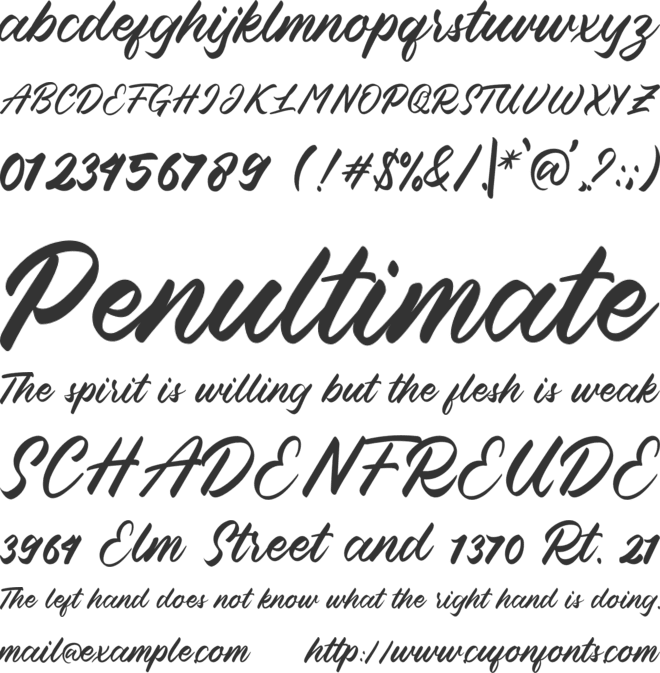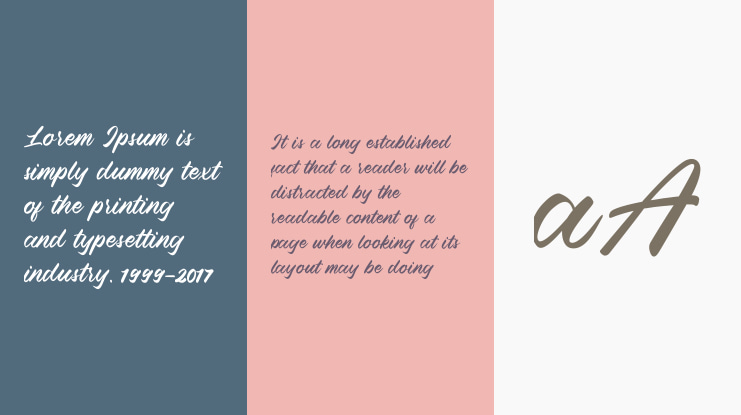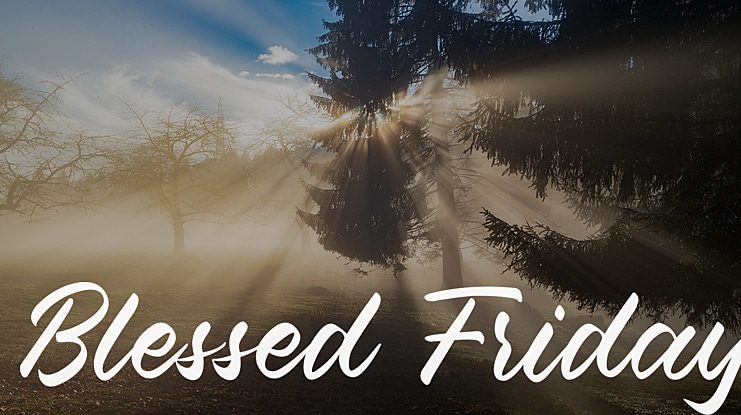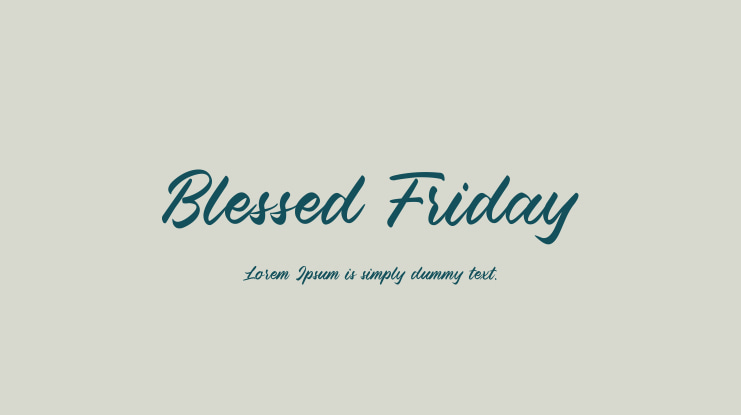
Blessed Friday Font Family
Ade Santani
Blessed Friday is a script typeface with multiple style. You can use it as a logo, badge, insignia, packaging, headline, poster, etc The alternative characters in this font were divided into several OpenType features such as Stylistic Alternates, Stylistic Sets, and Ligature. The OpenType features can be accessed by using OpenType program such as Adobe Illustrator, Adobe Photoshop, and Adobe InDesign.
Sancrea Studio